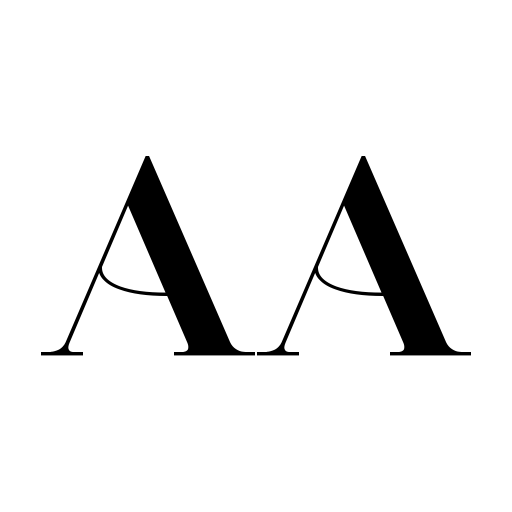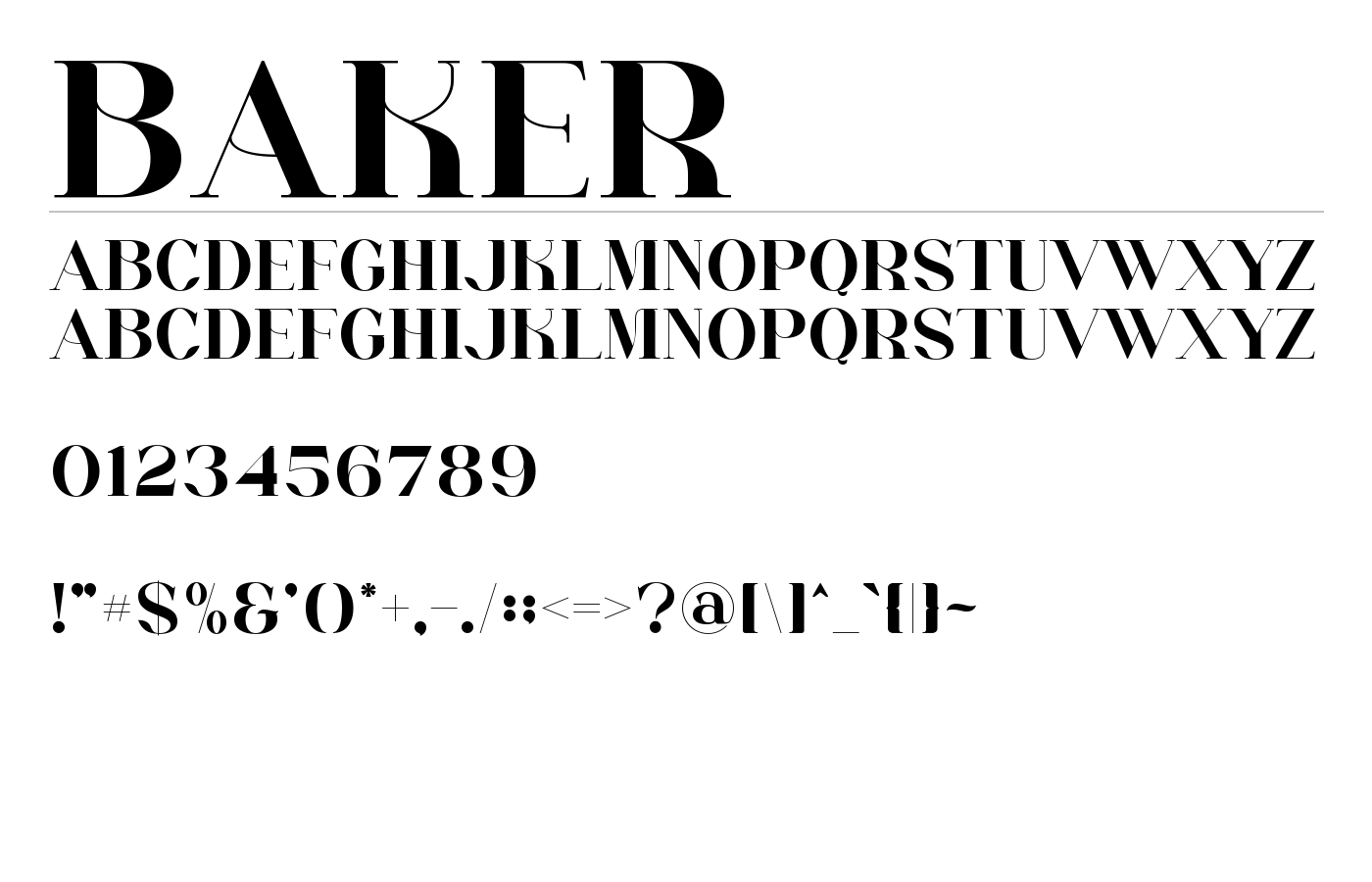
Baker is a refined modern serif font characterized by its high contrast between thick and thin strokes and elegant, sharp serifs. Its tall, narrow letterforms and stylish details give it a sophisticated, luxurious feel, making it ideal for upscale branding, fashion, editorial headlines, and elegant packaging where a timeless yet contemporary look is desired.
Baker Font
About Baker Font
| Font family | Baker Font |
| Designer | Biham Santoso |